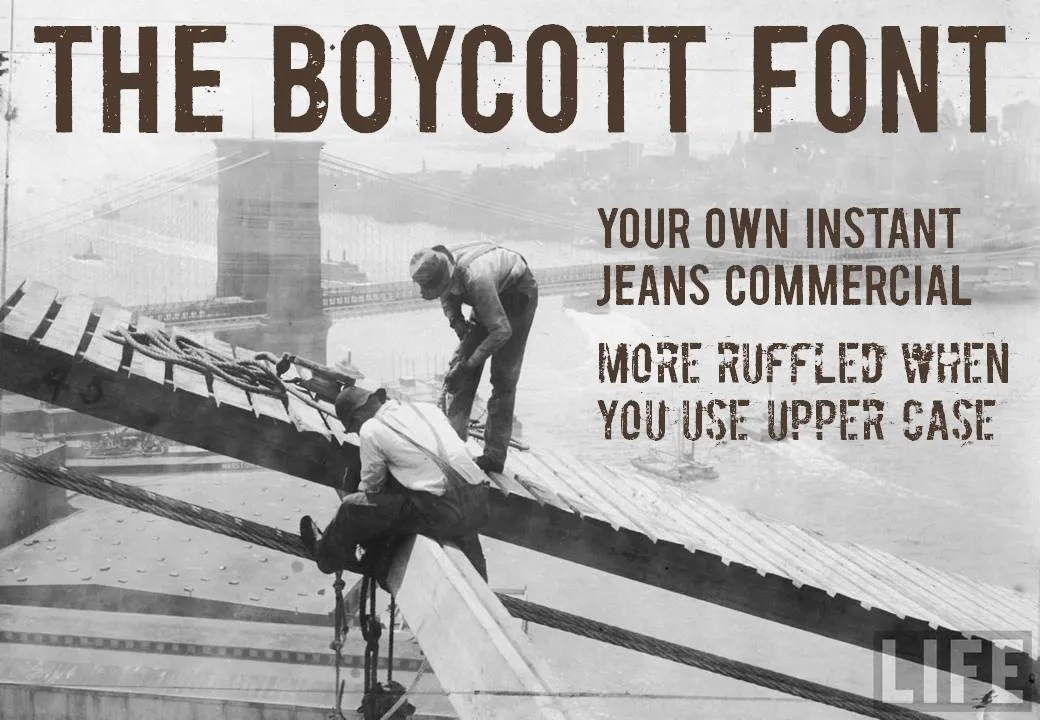
I must admit, I am ignoring my own earlier assertions about not using non-standard fonts in presentations. PCs do not come with Helvetica installed, and I love it. In most cases, embedding the font inside the PowerPoint presentation makes sure that people can use it on other computers as well.
Helvetica is a relatively tame font. Selectively you can go a bit wilder. The image below (taken from the excellent Google LIFE image archive) mixed together with the Boycott font gives that instant jeans commercial effect. Here is an example of a presentation that uses something similar. Obviously, these type of fonts are only to be used for big image/huge font presentations, and probably not in every presentation you make.